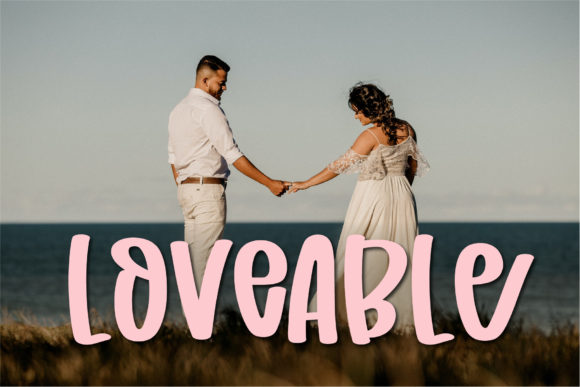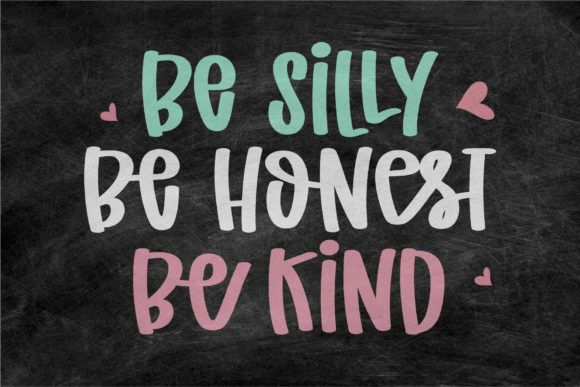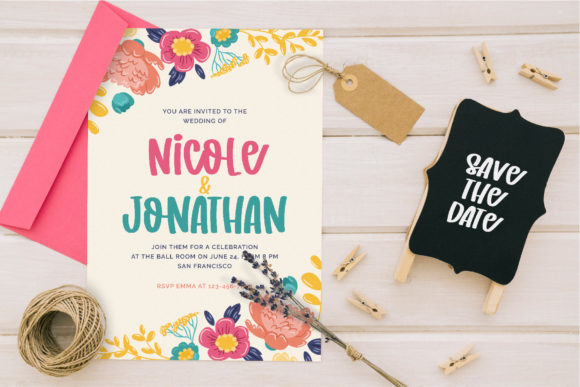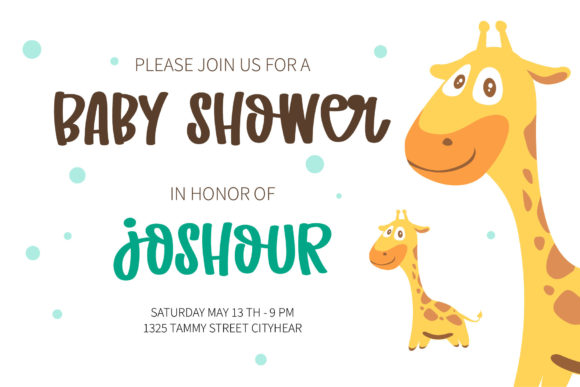
Gorgeous Teacher Font
Gorgeous Teacher is a cute and friendly handwritten font. It is the best choice for creating eye catching logos, branding and quotes. This font is PUA encoded which means you can access all of the glyphs and swashes with ease!